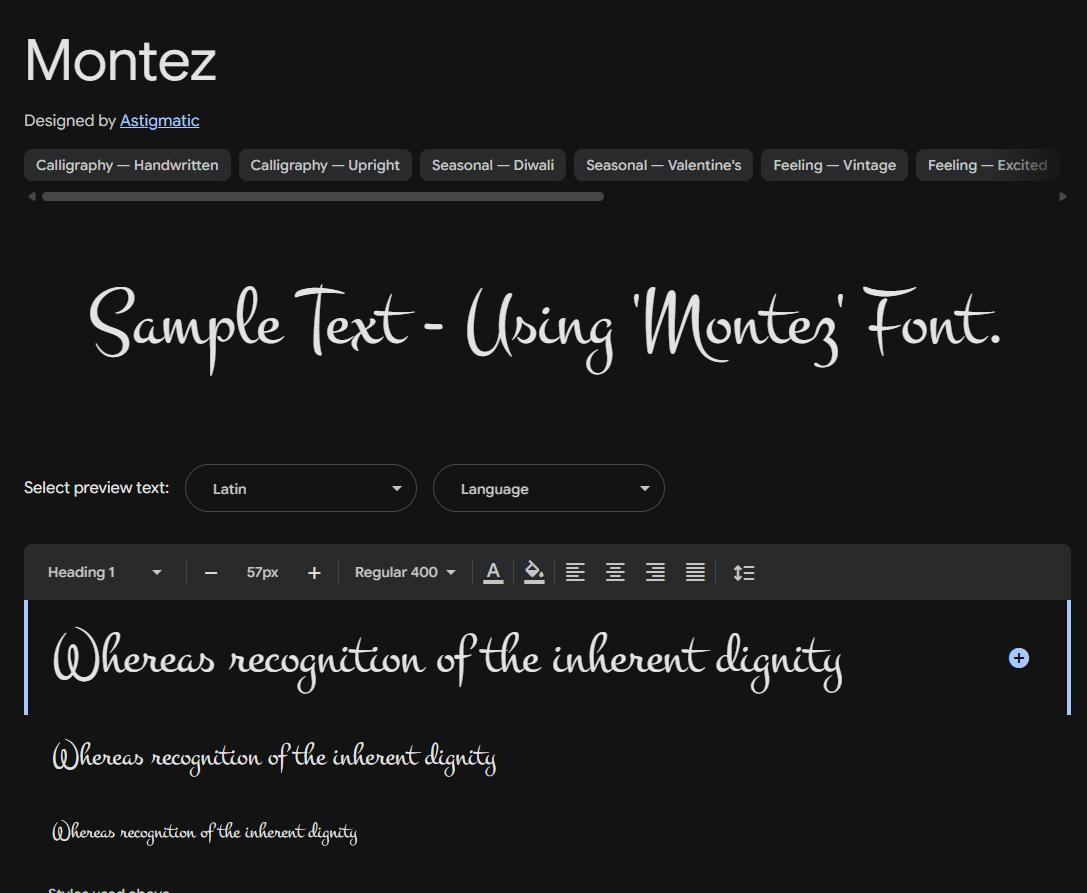
Montez, a singular-style script typeface engineered by the Astigmatic One Eye Typographic Institute, functions as a sophisticated bridge between mid-century analog advertising aesthetics and modern digital legibility. Designed with a rhythmic, upright posture that diverges from traditional slanted cursives, this single-weight display face utilizes sweeping ascenders and deliberate stroke variations to evoke the high-end elegance of 1960s beauty packaging while maintaining a strictly vertical stress for enhanced screen-readability. By prioritizing fluid glyph transitions and optimized kerning pairs, Montez overcomes the common legibility hurdles of calligraphic web fonts, offering a semantically rich typographic solution for luxury branding where expressive, decorative flourishes must coexist with the rigorous technical constraints of the modern pixel grid.
The Montez font family, expertly crafted by Brian J. Bonislawsky of Astigmatic, functions as a refined upright calligraphic script that synthesizes mid-century beauty product packaging aesthetics with modern OpenType versatility. Distinguished by its vertical stress and rhythmic x-height, the typeface transitions seamlessly from a fancy, vintage elegance to a loud, excited display of gestural energy, making it an ideal choice for the vibrant illumination of Diwali or the romantic warmth of Valentine's Day. Its handwritten ligatures and bouncy baseline create a playful, active visual flow that feels both cute and happy, yet maintains a sophisticated structural integrity. By blending an artisanal, handwritten charm with high-contrast glyph construction, Montez delivers a uniquely loud and playful personality that optimizes semantic impact for designers seeking a typeface that is simultaneously fancy, active, and deeply rooted in a nostalgic vintage sensibility.
Due to its high stroke contrast and sweeping, rhythmic swashes inspired by mid-century beauty advertisements, Montez is functionally unsuitable for high-stakes technical industries-such as legal services, biomedical engineering, or aerospace logistics-where minimizing cognitive load and maximizing rapid legibility are critical. The typeface's decorative upright calligraphy and intricate counters present significant accessibility challenges, particularly in high-density data visualizations or small-scale user interface (UI) components where thin-line rendering can fail WCAG compliance on low-DPI displays. In professional environments requiring a neutral "typographic voice" or precise optical sizing for body copy, the exuberant personality and stylistic ligatures of this Astigmatic-designed display face disrupt the hierarchical clarity necessary for processing complex information architecture or long-form documentation.
Montez is primarily a script font designed for decorative purposes rather than sustained long-form reading. Its high stroke contrast and vertical stress result in low legibility scores when rendered at standard 16px body copy sizes.
Simple sans-serif fonts create a balanced visual hierarchy when paired with the fluid, rhythmic curves of Montez. Pairing it with a geometric typeface like Montserrat provides a stark typographic contrast that stabilizes the script's inherent baseline variance.
The intricate loops and thin connectors of Montez make it increasingly difficult to read as the point size decreases. Technical rendering tests show that its fine hairlines often suffer from aliasing on low-DPI displays when set below 24 points.
Montez is an excellent choice for wordmarks that require a touch of elegance and a handmade, calligraphic feel. The font's distinct character terminals and upright posture allow for effective vector manipulation while maintaining high brand recall in luxury sectors.
The romantic and sophisticated aesthetic of Montez makes it a premier choice for wedding-related typography and event headers. Its calligraphic glyph set mimics traditional nib-and-ink pressure, providing a formal yet approachable atmosphere for high-end stationery.
Using Montez in all-caps is generally discouraged because script fonts are not architecturally designed for consecutive uppercase glyphs. Because the uppercase characters lack connecting ligatures to one another, all-caps settings disrupt the cursive flow and create irregular kerning gaps.
Montez captures attention quickly in fast-scrolling digital environments, making it ideal for punchy headlines on visual platforms. Its moderate x-height and sweeping ascenders ensure that display text remains impactful even when viewed on mobile screens with varying aspect ratios.
Short pull quotes benefit from the expressive and rhythmic nature of Montez, adding a stylistic flair to an otherwise rigid page layout. The font's "Joy of Living" design inspiration translates into high visual engagement metrics when used for highlighted editorial content.
For creative professionals, Montez adds a personal and sophisticated touch that differentiates a brand from corporate competitors. Utilizing its OpenType features for name headers creates a bespoke feel that offsets the structural rigidity of standard contact detail grids.
Montez excels when paired with high-contrast colors, as its sweeping strokes stand out vibrantly against solid, saturated backgrounds. The font's silhouette remains crisp under high-contrast ratios, minimizing chromatic aberration effects in digital environments due to its clean, mathematical vector outlines.